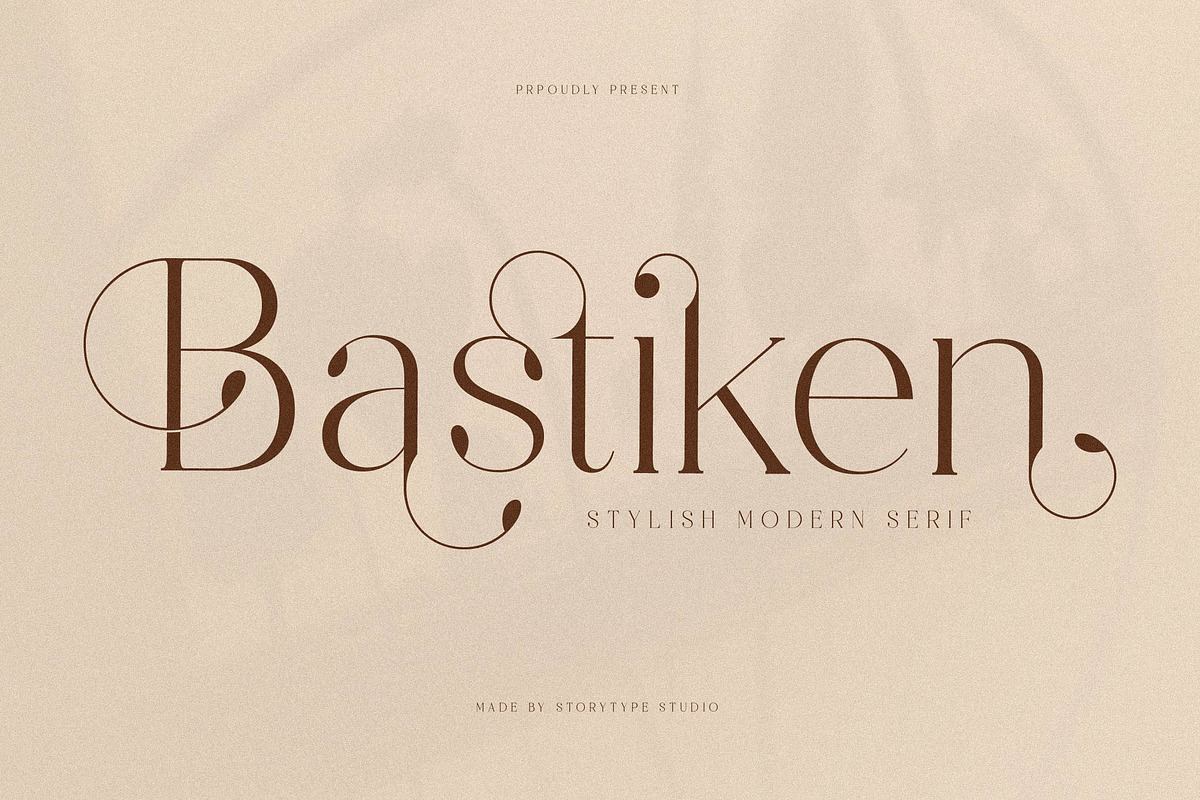
Bastiken Stylish Modern Serif Font Free Download is a sleek, contemporary serif typeface that blends timeless elegance with modern design. Featuring clean lines, sharp serifs, and a sophisticated structure, this font is perfect for luxury branding, editorial layouts, websites, logos, and more.
Its refined design ensures clarity and style, making it an excellent choice for both large headings and smaller body text. Whether you’re designing for a high-end brand, creating an upscale publication, or building a professional website, Bastiken Stylish Modern Serif Font Free Download elevates your typography with a polished, modern touch.